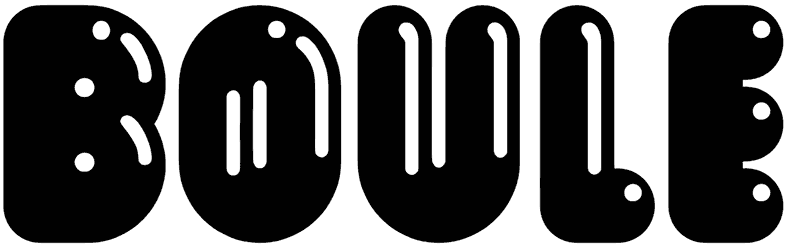
Boule Font
If you want to present a playful and funny text, Boule can be a nice show. This groovy font with a bold and smooth letter face is a cute item for a lot of designs, namely headers, posters, covers, wordmarks, logos, and the like. Even if Boule doesn’t support lowercase letters, numerals, or punctuation marks, it can be appealing to attract viewers with three styles.
ingoFont BOULE
Capitalized, GEOMETRIC, bold and ROUND.If the typographer sees a font like that, it’s enough to make his toes curl. But sometimes it just has to be that way.
Geometrically constructed fonts do not necessarily have to be pointed and angular; It also works consistently around. And if I say it consistently, then in this case, that’s done consistently.
The basis for the BOULE is the circle. The letters are drawn with constant line width, the “corners“ and endings all have the same radius, the lines are all the same thickness.
The BOULE consists only of capitals. There is only one difference in the use of uppercase and lowercase letters: in the uppercase letters, the round letters are circular, while the lowercase letters are narrow.
The Boule is not only very fat, it also runs very tight; that is, the glyphs are very close to each other. To avoid “holes” due to unfortunate letter combinations, the Boule contains ligatures for FT, ST, TT and TZ.
There are also other versions of the font: Boule Brillant on the one hand. In this version, simple highlights simulate a light incidence from the top right. These light edges give the font a decorative effect that makes it easy to think of wet sausages or balloons in some shapes.
And finally the Boule Contour. As the name implies, it is the outer contour of the letters, combined with a shadow at the bottom left.The name Boule (French for ball) says it already: this font is globated. Therefore, it is also very suitable for all three-dimensional alienation effects. With simple light and shadow you can achieve a very convincing 3D effect with little effort.